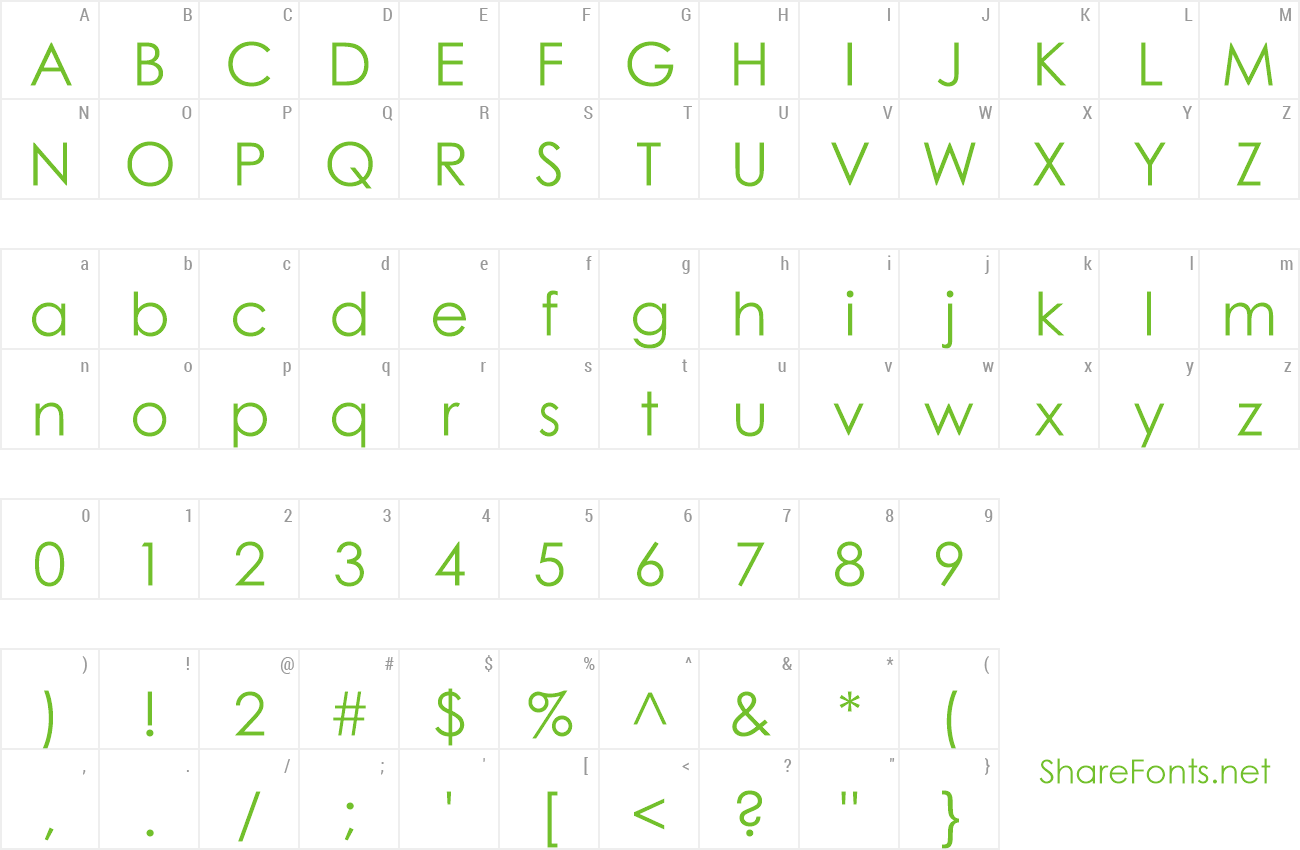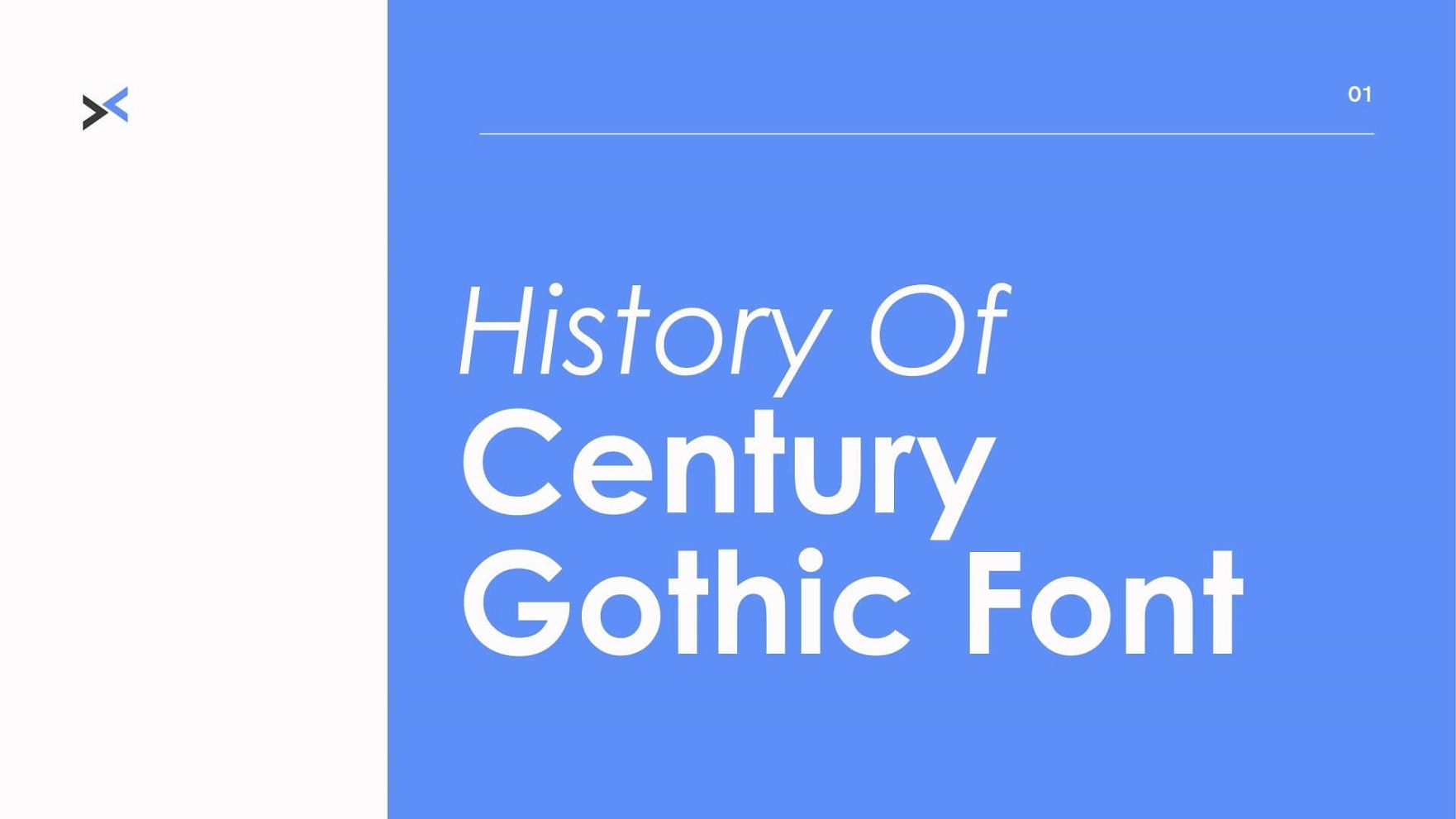
Century Gothic Font Family
Century Gothic Font Family - Century gothic™ is based on monotype 20th century, which was drawn by. Learn how to use century gothic font in your web design with css and html code. In this article we explore the history of the century gothic family, the original font.
In this article we explore the history of the century gothic family, the original font. Century gothic™ is based on monotype 20th century, which was drawn by. Learn how to use century gothic font in your web design with css and html code.
In this article we explore the history of the century gothic family, the original font. Learn how to use century gothic font in your web design with css and html code. Century gothic™ is based on monotype 20th century, which was drawn by.
Century Gothic Font Family
In this article we explore the history of the century gothic family, the original font. Learn how to use century gothic font in your web design with css and html code. Century gothic™ is based on monotype 20th century, which was drawn by.
In this article we explore the history of the century gothic family, the original font. Century gothic™ is based on monotype 20th century, which was drawn by. Learn how to use century gothic font in your web design with css and html code.
Learn how to use century gothic font in your web design with css and html code. In this article we explore the history of the century gothic family, the original font. Century gothic™ is based on monotype 20th century, which was drawn by.
Century Gothic Font Family
Learn how to use century gothic font in your web design with css and html code. Century gothic™ is based on monotype 20th century, which was drawn by. In this article we explore the history of the century gothic family, the original font.
In this article we explore the history of the century gothic family, the original font. Learn how to use century gothic font in your web design with css and html code. Century gothic™ is based on monotype 20th century, which was drawn by.
In this article we explore the history of the century gothic family, the original font. Century gothic™ is based on monotype 20th century, which was drawn by. Learn how to use century gothic font in your web design with css and html code.
Century Gothic Font Family
In this article we explore the history of the century gothic family, the original font. Century gothic™ is based on monotype 20th century, which was drawn by. Learn how to use century gothic font in your web design with css and html code.
Learn how to use century gothic font in your web design with css and html code. Century gothic™ is based on monotype 20th century, which was drawn by. In this article we explore the history of the century gothic family, the original font.
Century gothic™ is based on monotype 20th century, which was drawn by. In this article we explore the history of the century gothic family, the original font. Learn how to use century gothic font in your web design with css and html code.
Century gothic™ is based on monotype 20th century, which was drawn by. In this article we explore the history of the century gothic family, the original font.